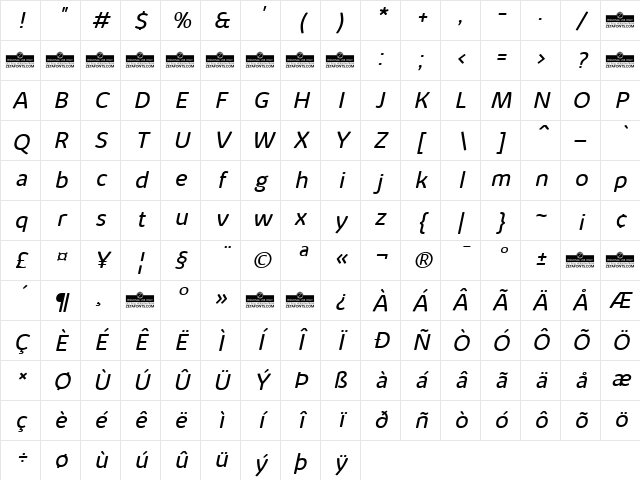
Kabrio Alternate Book Italic
Foundry: studio kmzero
Designer: Corimo Lorenzo Pancini
Design Context for Kabrio Alternate
Kabrio Alternate is a composed and adaptable typeface that performs quietly and consistently across a wide range of design contexts. The slanted form adds forward momentum and visual energy.
Pro Tip: Use Kabrio Alternate for emphasis, pull quotes, and subheadings where its slanted energy can add rhythm to the layout.